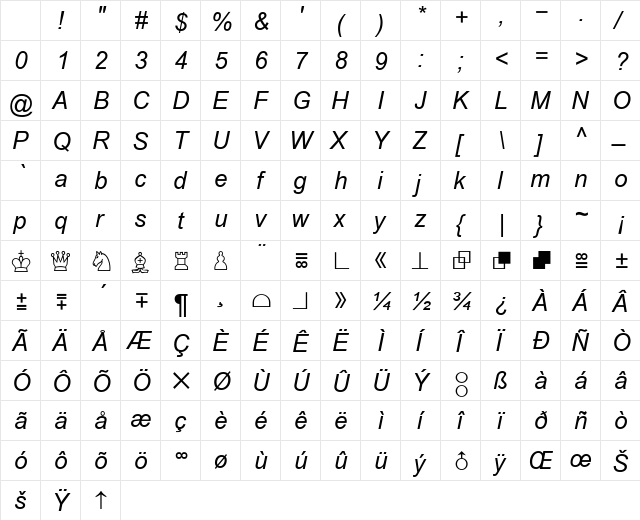
Complete FigurineCB AriesSP Italic glyph index. Displaying only characters natively supported by FigurineCB AriesSP Italic font.
FigurineCB AriesSP is a composed and adaptable typeface that performs quietly and consistently across a wide range of design contexts. The slanted form adds forward momentum and visual energy.